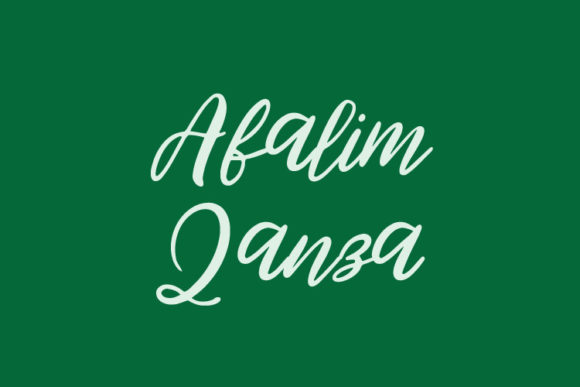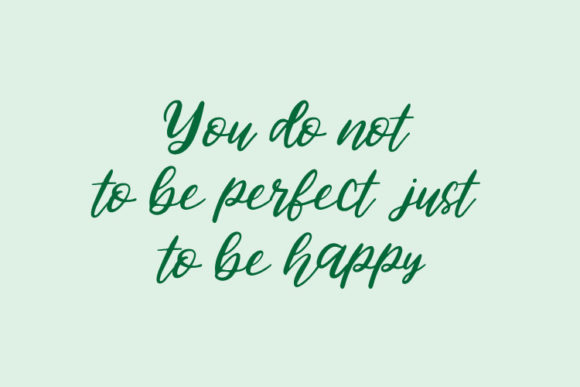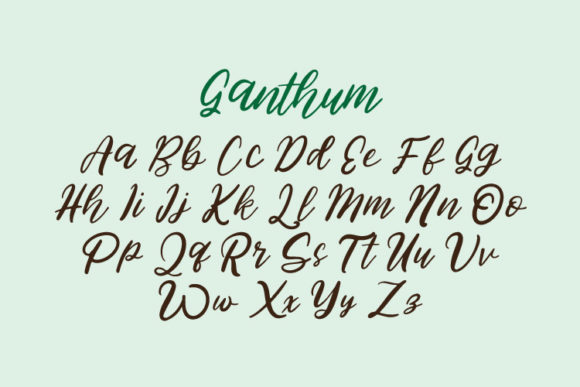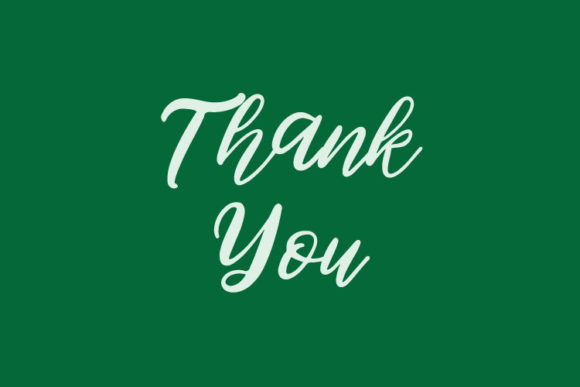
Ganthum Font: Elevate Your Designs with a Beautiful Script Font
Ganthum is a stunning script font that has been gaining popularity among designers and crafters alike. Its unique blend of fun and quirky characters makes it an excellent addition to any design project. If you’re looking for a font that can add a touch of personality to your work, look no further than Ganthum.
The Characteristics of Ganthum Font
Ganthum font features a beautiful script style with flowing lines and curves that give it a distinctive look. The font includes a range of characters, from uppercase and lowercase letters to numbers and punctuation marks. Each character is carefully crafted to ensure that it looks great in any design, whether you’re working on a logo, brochure, or social media post.
Why Choose Ganthum Font?
So, why should you choose Ganthum font for your next design project? Here are just a few reasons:
- Unique and Quirky Characters: Ganthum font features fun and quirky characters that can add a touch of personality to your designs.
- Highly Versatile: This font is perfect for a wide range of design projects, from logos and brochures to social media posts and more.
- Easy to Read: Despite its unique style, Ganthum font is easy to read, making it perfect for body text and headlines.
- Customizable: You can use Ganthum font in a variety of contexts, from digital designs to print materials.
How to Use Ganthum Font in Your Designs
Using Ganthum font in your designs is easy. Here are a few tips to get you started:
- Pair it with Other Fonts: Ganthum font looks great when paired with other fonts. Try pairing it with a bold sans-serif font for a striking contrast.
- Use it for Headlines and Titles: Ganthum font is perfect for headlines and titles, where its unique style can really shine.
- Add it to Your Brand Identity: If you’re looking to create a consistent brand identity, consider using Ganthum font in your logo and marketing materials.
Who Can Benefit from Using Ganthum Font?
Ganthum font is perfect for a wide range of designers and crafters, including:
- Graphic Designers: If you’re a graphic designer looking for a unique font to add to your collection, Ganthum is a great choice.
- Crafters and Scrapbookers: Ganthum font is perfect for crafters and scrapbookers who want to add a personal touch to their projects.
- Social Media Managers: If you’re a social media manager looking for a font that can help your brand stand out, Ganthum is a great option.
In conclusion, Ganthum font is a beautiful script font that can add a touch of personality to any design project. Its unique blend of fun and quirky characters makes it an excellent choice for designers and crafters who want to create something truly special. Whether you’re working on a logo, brochure, or social media post, Ganthum font is sure to elevate your design and make it stand out.